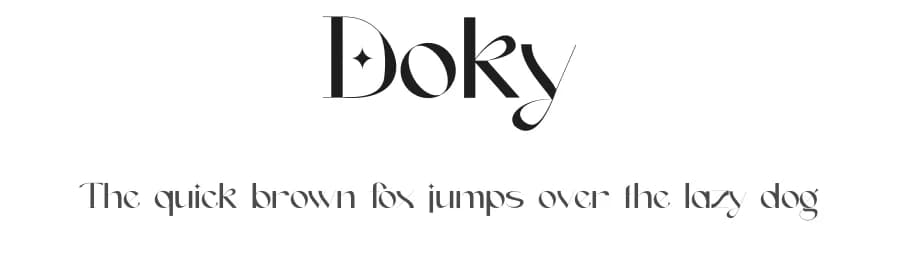
About Doky Font
| Font Family | Doky |
| Full Name | Doky |
| PostScript Name | DokyRegular |
| Designer | Delip Nugraha |
Doky Font is a versatile sans-serif font that works for both headings and body text. Pair it with a contrasting serif or slab serif font to add visual interest and a clear distinction between titles and body copy.
Doky Font
by Delipensil